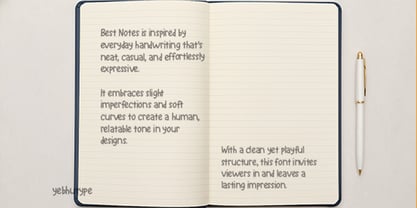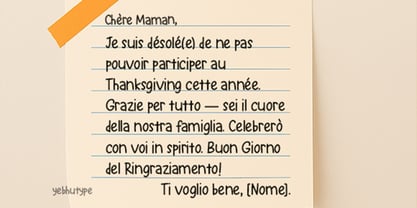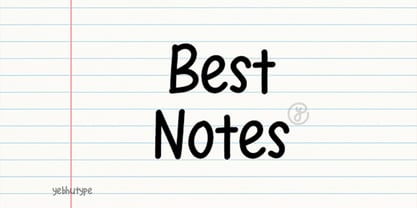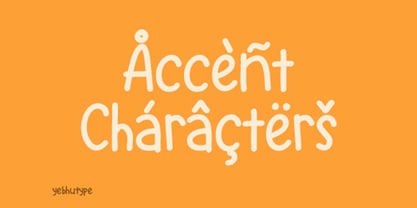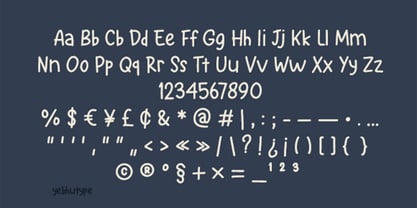
Best Notes
Best Notes Font: Where Friendly Simplicity Meets Handwritten Joy
Introducing Best Notes Font, a cheerful handwritten typeface designed to bring warmth, clarity, and personality into every word. With its rounded letterforms and playful rhythm, Best Notes captures the spirit of handwriting—natural, approachable, and full of heart.
More than just a font, Best Notes is your creative companion. It makes any message feel personal, sincere, and fun—whether you're creating educational content, crafting DIY projects, or branding something uniquely yours.
The Essence of Best Notes Font
Best Notes is inspired by everyday handwriting that’s neat, casual, and effortlessly expressive. It embraces slight imperfections and soft curves to create a human, relatable tone in your designs. With a clean yet playful structure, this font invites viewers in and leaves a lasting impression.
Key Features
✏️ Handwritten and Friendly
Every letterform mimics real handwriting—smooth, bouncy, and full of character—to bring warmth and authenticity to your projects.
🎯 Highly Legible
Designed for clarity, Best Notes ensures your text is readable across devices, sizes, and mediums—without losing its charm.
🎨 Perfect for Kids & Learning Materials
The rounded, open forms are ideal for educational use, early learning, and child-friendly designs that need to be both fun and functional.
💬 Casual Yet Polished
While playful at heart, Best Notes maintains a clean and tidy feel, making it great for everything from informal notes to brand assets.
🌟 Versatile for All Creative Needs
From labels and packaging to worksheets, greeting cards, and social media content—Best Notes adds a personal, handwritten touch.
Mood & Personality
Best Notes exudes friendliness, optimism, and simplicity. It feels like a handwritten reminder on your desk or a note from a friend. It’s soft, warm, and inviting—perfect for creators who want their work to feel down-to-earth and relatable.
Ideal Use Cases
📚 Children’s Books & Educational Resources
Designed for clarity and charm—great for learning environments and storytelling.
🎁 Creative Branding & Packaging
Add a handmade, cozy feel to your boutique product labels, thank-you tags, or shop signage.
💌 Greeting Cards & Journals
Bring heart to every word with a font that feels handwritten and real—perfect for invitations, notebooks, or bullet journaling.
📱 Social Media Graphics & Quotes
Stand out in the feed with playful, legible lettering that’s made for captions, quotes, reels, and digital crafts.
🧷 DIY Projects & Handmade Goods
Use Best Notes in Cricut designs, planners, scrapbooks, and stickers—wherever you want personality and warmth.
Why Choose Best Notes Font?
In a world of over-polished typefaces, Best Notes offers something refreshingly human. It’s simple without being boring, friendly without being messy, and expressive without sacrificing legibility. This is a font that feels real—perfect for turning your designs into meaningful, memorable moments.
Let Your Words Feel Personal
With Best Notes Font, every word feels like it comes from the heart. Whether you're teaching, designing, or creating something special, this font helps you communicate in a way that's honest, playful, and full of life.